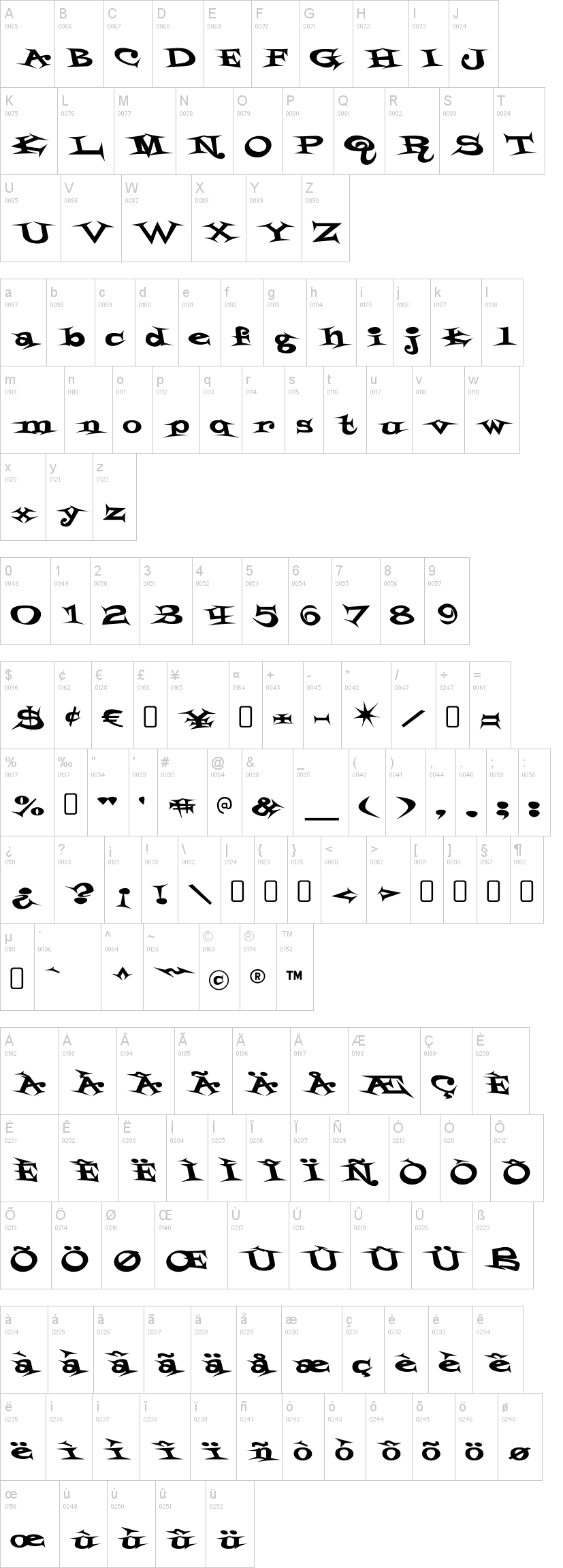
Шрифт Styrofoam Feelings
Styrofoam Feelings is a nonchalant, sharp edged, Latin serif headliner. Don't forget to read the files inside the zip for details. Updated in 2012.